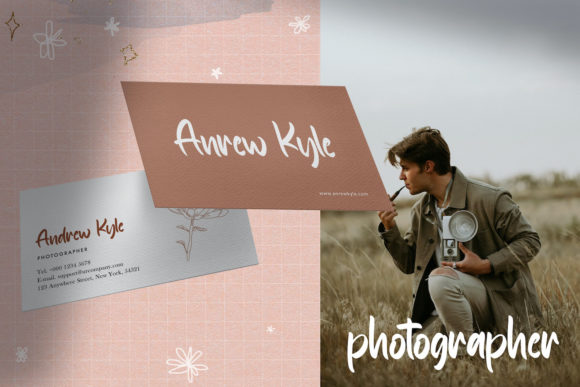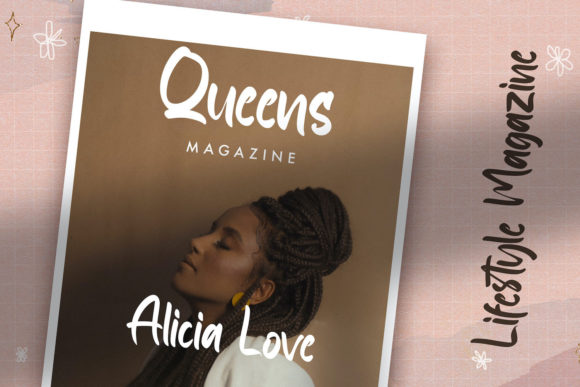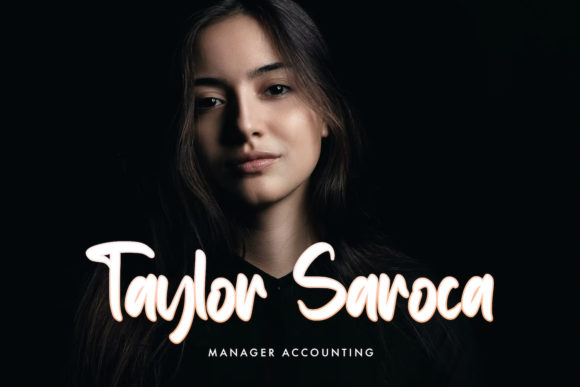
Introduction to Sang Bintang Font
There’s something magical about creating a design that transports you to a different world. The spark of inspiration hits, and before you know it, you’re pouring your heart and soul into a project that’s nothing short of breathtaking. For many designers, this feeling is what drives them to create something truly extraordinary. And for those moments, you need a font that’s just as extraordinary – enter the Sang Bintang Font.
This beautiful, handwritten font is more than just a design resource – it’s a game-changer. With its delicate, elegant, and free-flowing characters, the Sang Bintang Font is the perfect match for a wide range of designs. Whether you’re working on a project with a transparent background or a high-quality print material, this font is sure to elevate your work to the next level.
Key Features of Sang Bintang Font
- High-quality, free design resource ideal for creative projects
- Features a unique, elegant design with a transparent background, allowing for seamless integration into various backgrounds
- Comes in a single font size, suitable for a wide range of applications, including headings and body text
- Designed with a high resolution (300 DPI) for crisp and clear display in various mediums, including print and digital
- Perfect for designers and artists seeking a stylish and sophisticated font for their next creative project
Honest Review: Sang Bintang Font
I recently stumbled upon the Sang Bintang Font, and I must say it’s a lovely addition to any design project. The font is a beautiful representation of traditional Indonesian typography, with a unique flair that sets it apart from other fonts in its class.
- ✨ High-quality design: The Sang Bintang Font is meticulously crafted with attention to detail, making it perfect for any creative project that requires a touch of elegance.
- ✨ Transparent background: The font’s transparent background allows for seamless integration with other design elements, giving you more flexibility when creating your design project.
- ⚠️ Limited character set: While the font is beautiful, its character set is somewhat limited, which may be a drawback for designers who need to use a wide range of characters in their project.
Overall, I’m impressed with the Sang Bintang Font’s unique design and versatility. While it may not be perfect, it’s definitely a valuable addition to any design resource library. If you’re looking for a high-quality, free font to use in your creative project, I’d definitely recommend giving it a try.
Sang Bintang Font is a free design resource ideal for creative projects requiring a unique touch. This font offers a high-quality, elegant aesthetic perfect for adding sophistication to your designs.
To get the most out of Sang Bintang Font, use it on a transparent background to create a sense of depth and elegance. Experiment with different font sizes and colors to achieve a unique look.
Sang Bintang Font is ideal for creative projects such as wedding invitations, branding materials, and social media graphics. Its high-quality design makes it perfect for adding a touch of sophistication to any project.